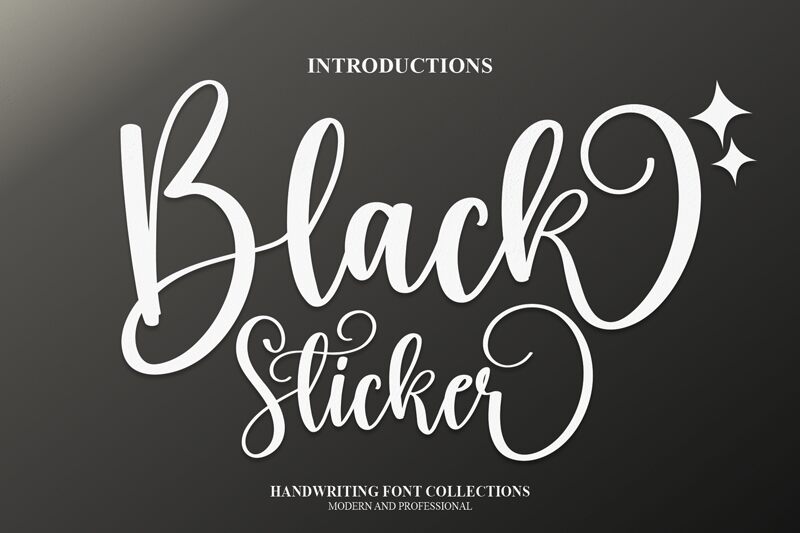
Black Sticker
Black Sticker is a stunning calligraphy typeface created by scratchones. With its elegant curves and bold strokes, this semi-bold font is perfect for creating attention-grabbing designs that demand to be noticed. Whether you're working on a wedding invitation, a business logo or even an album cover, Black Sticker will elevate your project to new heights of sophistication and style. This versatile font works equally well in both digital and print media, making it the ideal choice for web designers, graphic artists and creative professionals across all industries. Try Black Sticker today and discover the power of calligraphy in your designs!
the latest style letters are perfect for wall displays, wedding invitations, social media post logos, advertisements, product packaging, product designs, labels, photography, watermarks, invitations, stationery, and any project that requires taste handwriting.